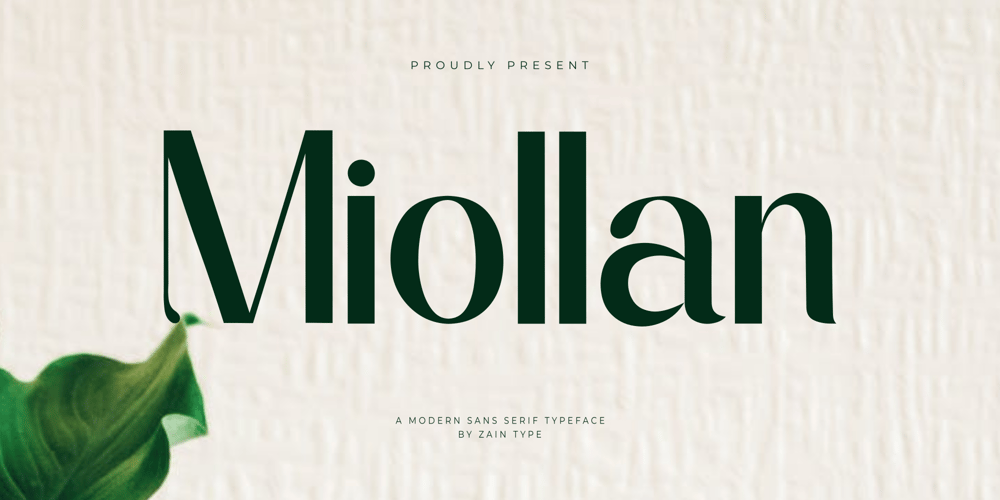
Miollan Font Family was designed by Ju Naen and published by Zaain Type. Miollan contains 1 styles and family package options. Miollan is a modern sans-serif font that combines simplicity and elegance. With clean lines and balanced proportions, Miollan offers optimal readability and a contemporary aesthetic, making it ideal for branding, web design, and print publications